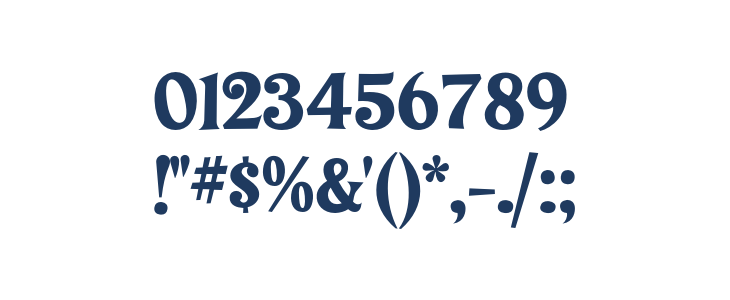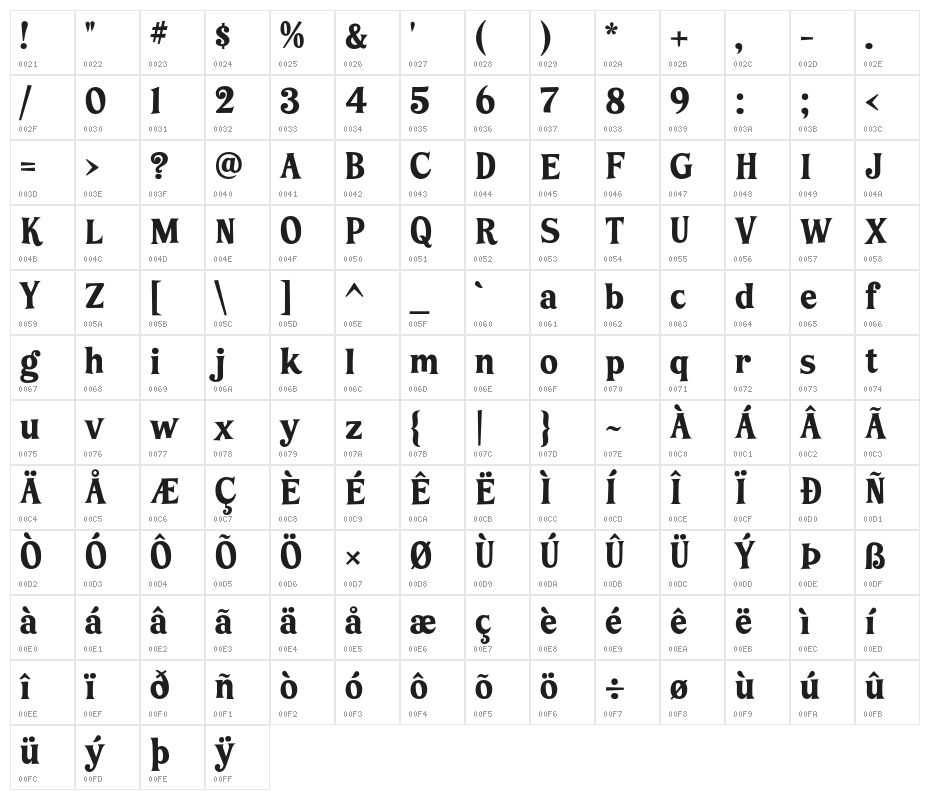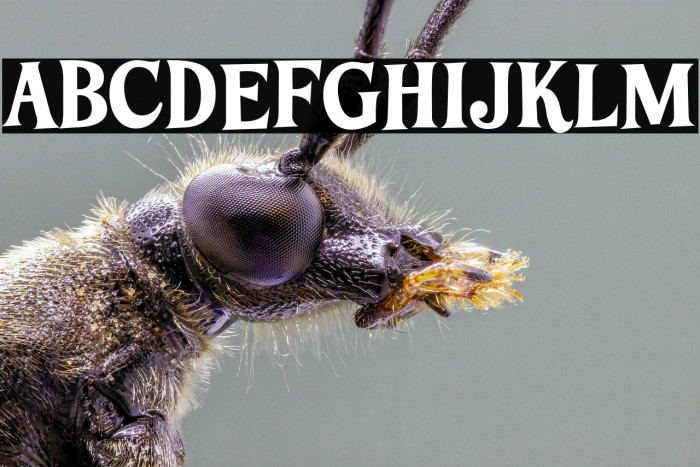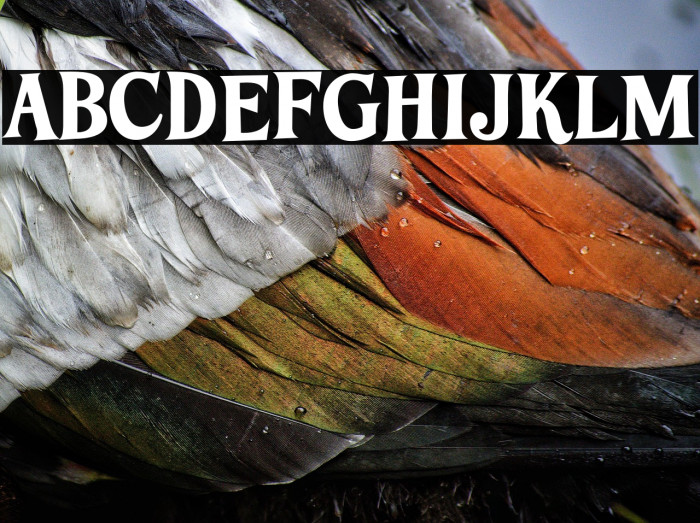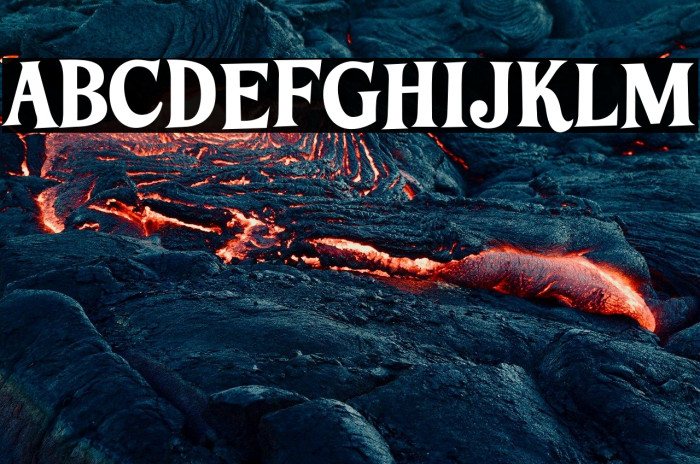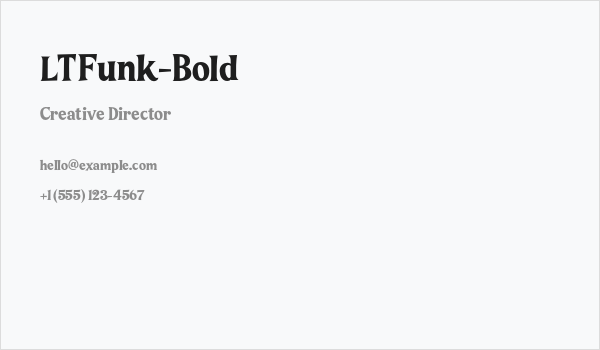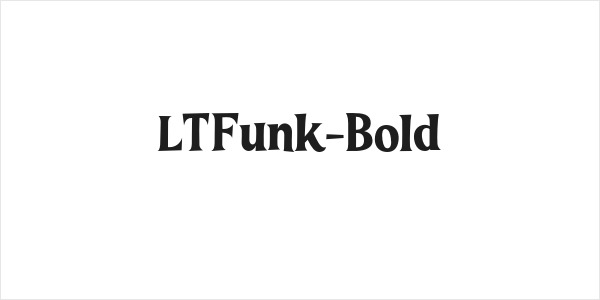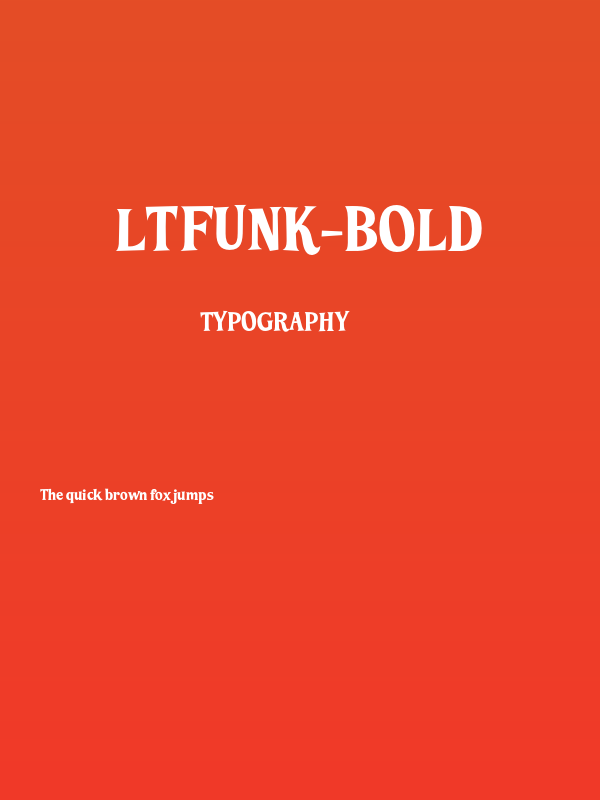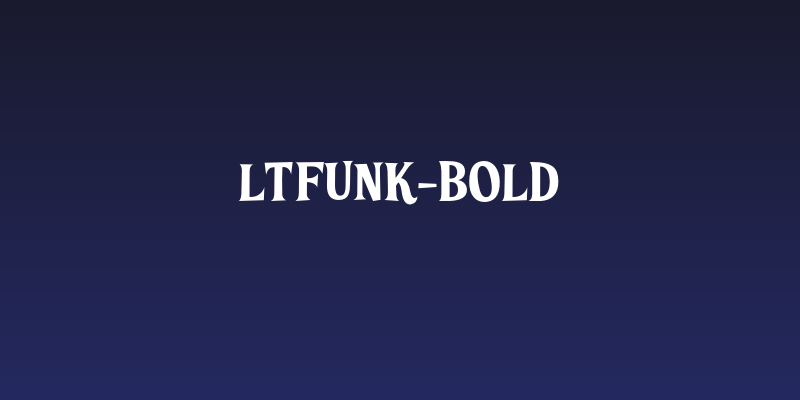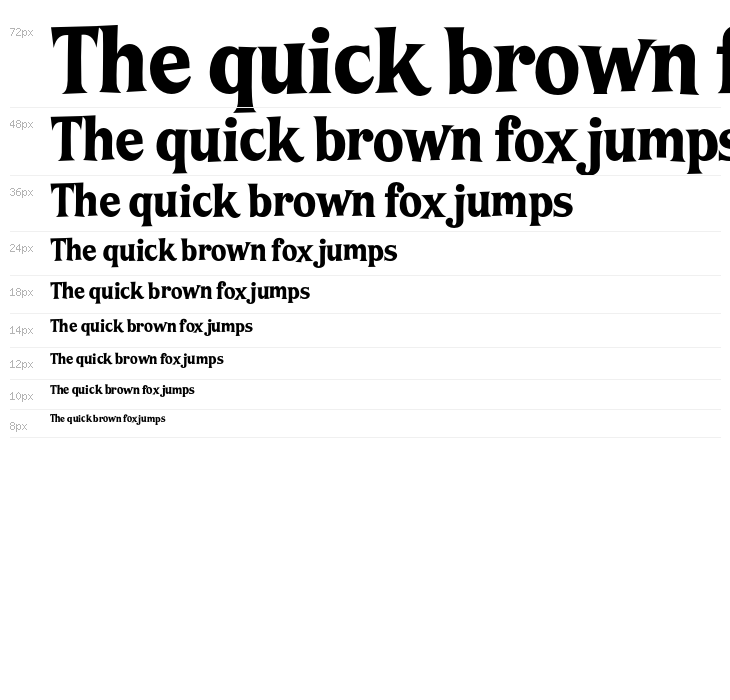
LTFunk-Bold Font
LTFunk-Bold Description
This font exhibits a bold and dynamic style with a strong presence. The characters are designed with a unique flair, featuring exaggerated curves and sharp edges that create a sense of movement and energy. The uppercase letters are particularly striking, with a commanding presence that makes them ideal for attention-grabbing headlines. The lowercase letters maintain the same boldness, ensuring consistency throughout the text. Numbers and special characters are crafted with the same attention to detail, making them suitable for a variety of uses. The overall design is both modern and playful, offering versatility for creative projects.
| Proposed Projects | Ideal for branding, advertising, poster design, and any project requiring a bold statement. |